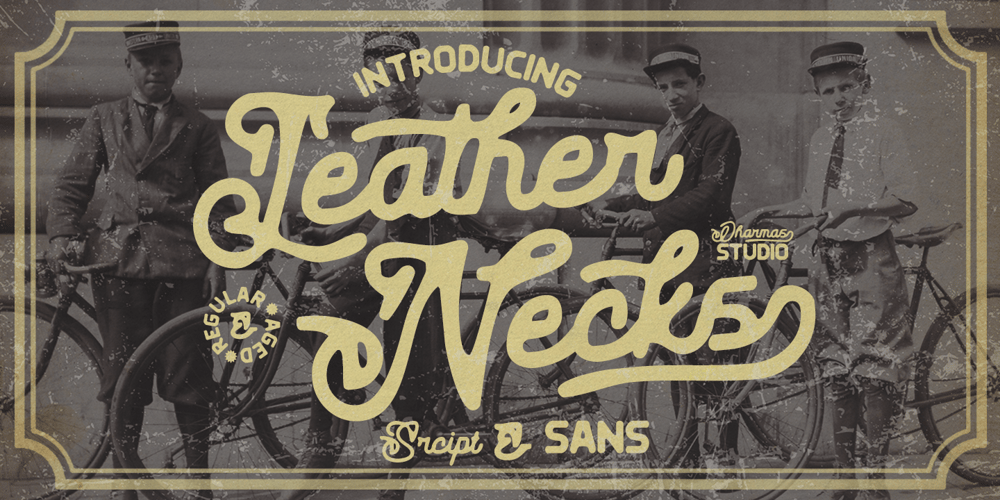
Leather Necks
Leather Necks font
Leather Necks Font Family was designed by Ahmad Jamaludin and published by Ahmad Jamaludin. Leather Necks contains 4 styles and family package options. Introducing LEATHER NECKS, a font born from the heart of traditional sign painting and American typographyLEATHER NECKS offers clean and aged versions, along with captivating features like alternates, ligatures, and swashes. Plus, it embraces the global stage with its multilingual supportFeatures: Leather Necks Main File Has 2 Families: Script and Sans Has 2 Styles: Regular and Aged Instructions (Access special characters, even in Cricut Design) Enjoy Designing!Dharmas Studio